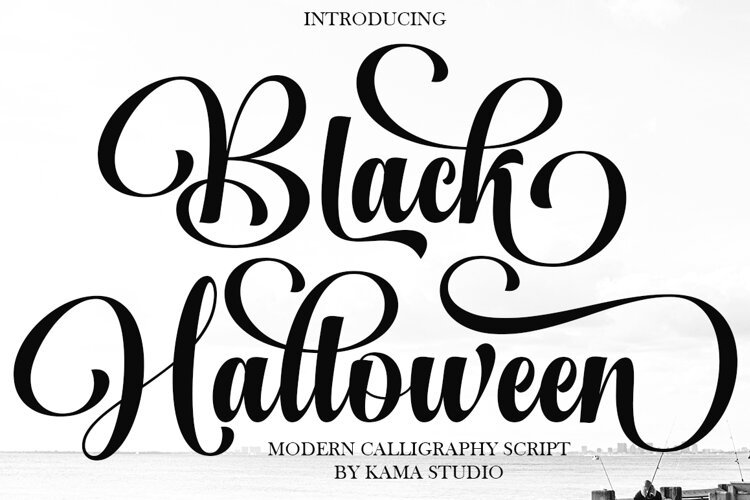
Immerse yourself in the world of Black Halloween, a meticulously crafted handwritten font that breathes life into every design. Its delicate strokes are the perfect choice for penning heartfelt letters or crafting standout invitations. Dive into the realm of culinary artistry with food labels adorned in Black Halloween or command attention with captivating titles. Its versatility won’t just leave an impression, but will spark a unique, cool aesthetic you didn’t know you were missing.